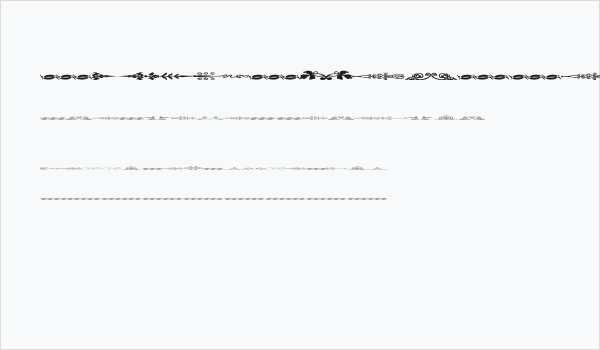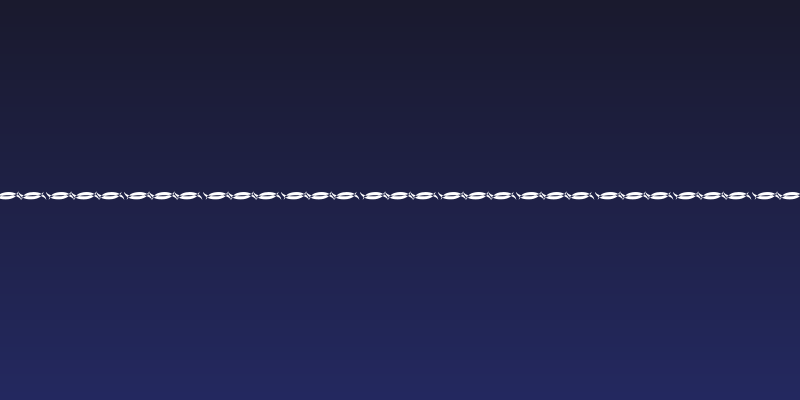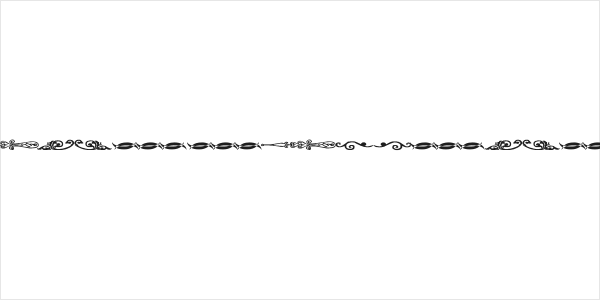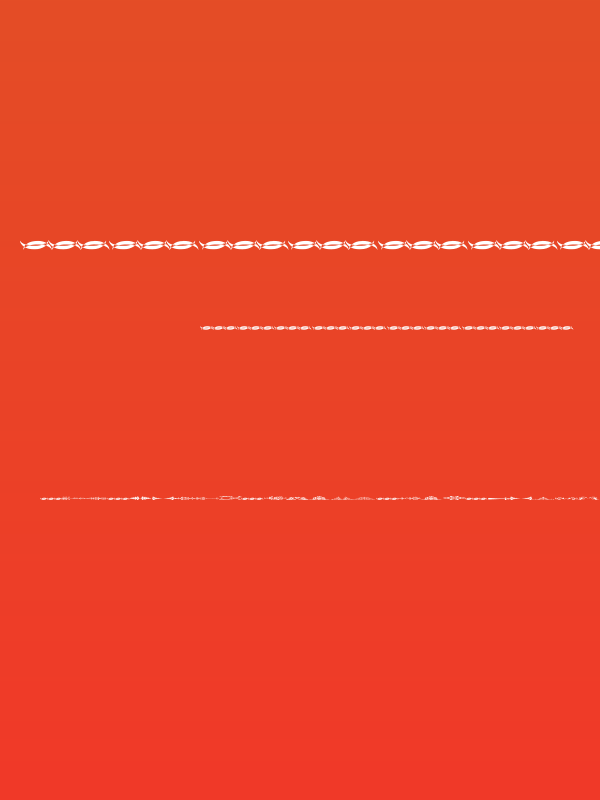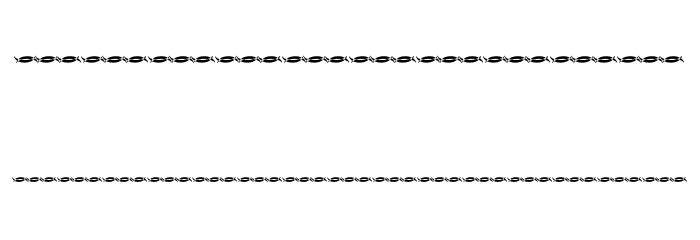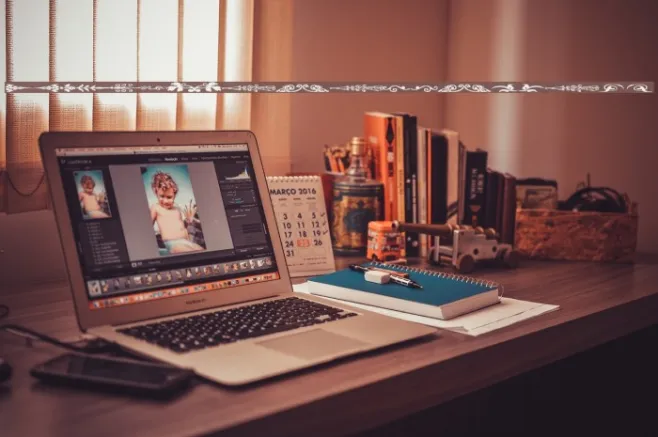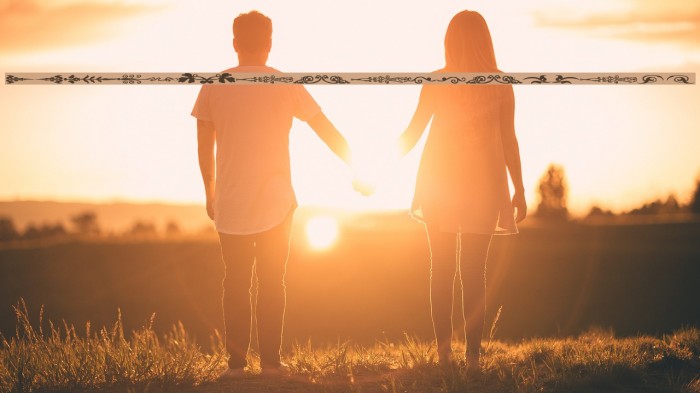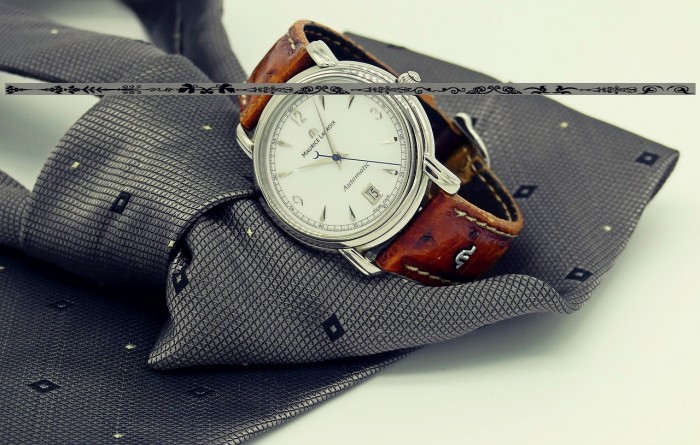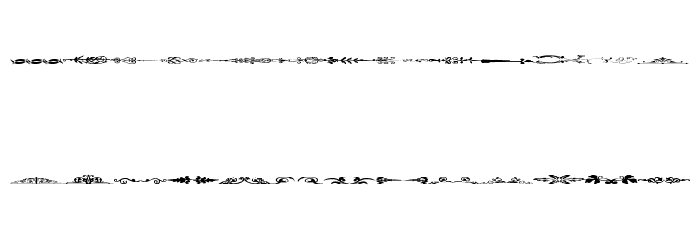
Sughayer Separates 12 Font
Sughayer Separates 12 Description
A collection of ornate, decorative horizontal separators featuring intricate flourishes, swirls, and symmetrical motifs. The designs are highly detailed and evoke a vintage or classical aesthetic, suitable for embellishing documents or invitations.
| Overall Style | Vintage, Decorative |
| Use Case | Dividers, Borders, Decorative accents |
| Proposed Projects | Wedding invitations, certificates, greeting cards, book chapter dividers, decorative print materials. |